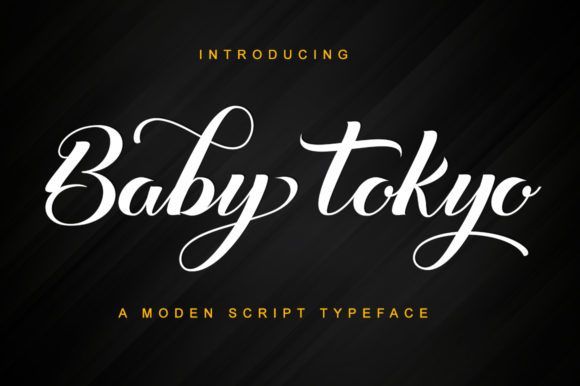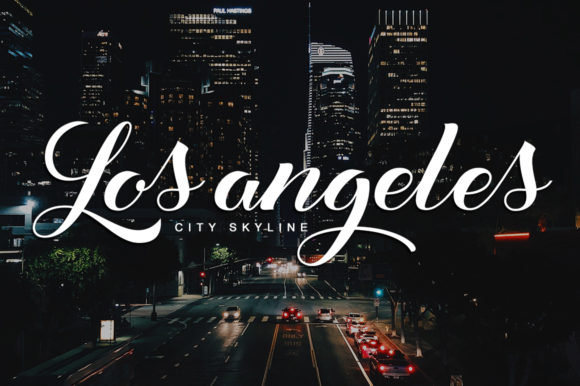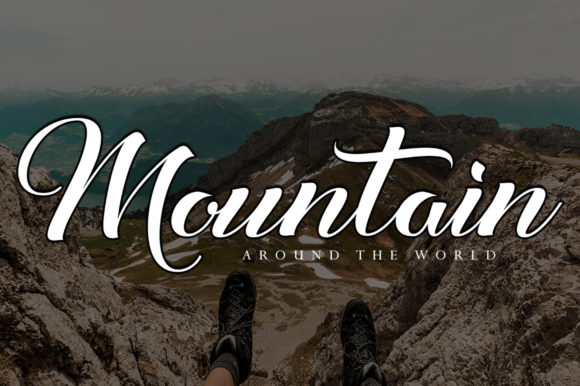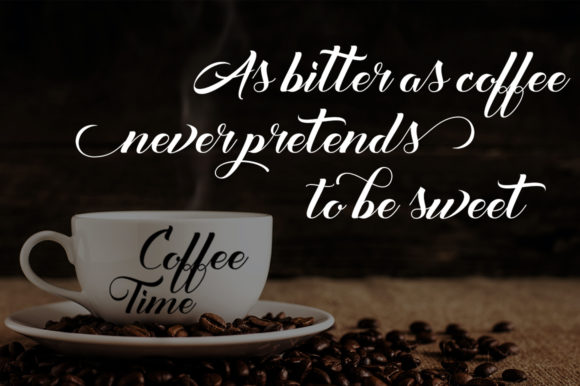
Baby Tokyo Font
About the Baby Tokyo Font
Meet Baby Tokyo Font, a stunning font that brings a touch of elegance and professionalism to any design. Baby Tokyo is an exquisite handwritten font, masterfully designed to become a true favorite. It maintains its classy calligraphic influences while feeling contemporary and fresh. Fall in love with it and bring your projects to the highest levels!
Baby Tokyo’s elegant yet casual style makes it ideal for branding projects requiring a touch of sophistication, particularly logos, short taglines, and social media graphics. It also works well on invitations, short quotes within posters, and packaging for high-end products. However, its delicate nature makes it unsuitable for large blocks of text or UI elements where readability is paramount. Avoid using it for body copy or lengthy paragraphs.
Its inherent charm pairs beautifully with clean sans-serif fonts like Montserrat or Lato for a balanced, modern look. For a more vintage feel, consider pairing it with a classic serif such as Garamond or Playfair Display. A touch of playful contrast can be achieved by combining it with a geometric sans-serif like Futura or a slightly bolder, rounded sans-serif such as Open Sans.
The overall personality of Baby Tokyo is sophisticated yet approachable; it projects a sense of friendly elegance, making it a versatile choice for brands seeking a balance between high-end appeal and approachability.